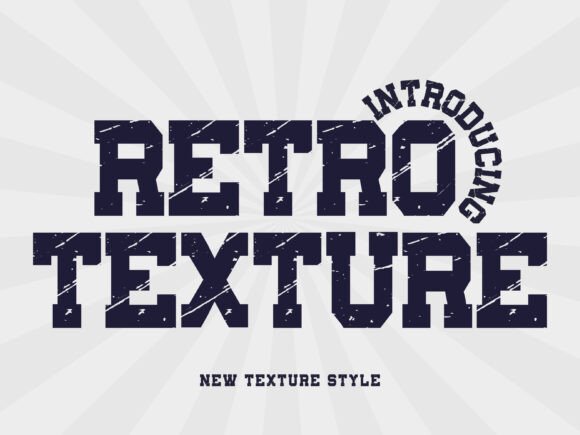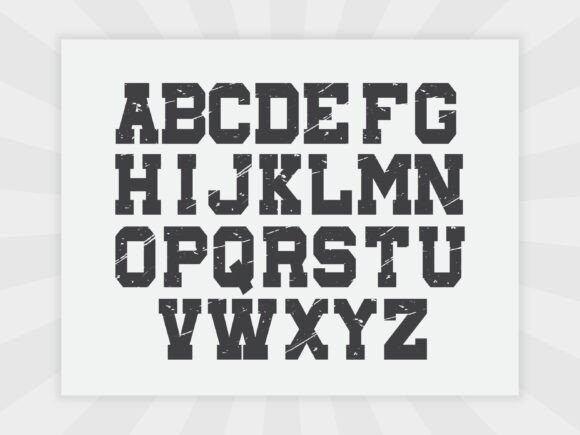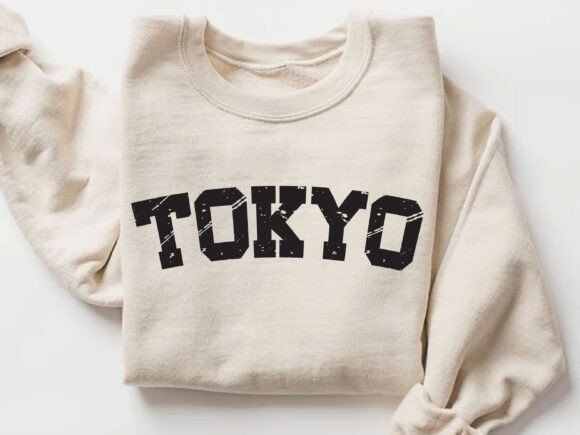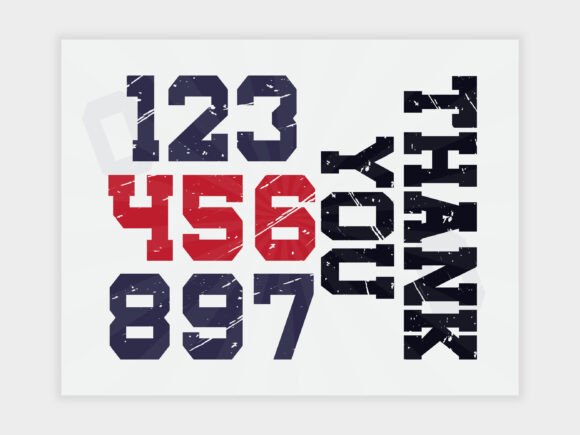
Retro Texture Font
About the Retro Texture Font
The Retro Texture Font is here to transform your projects with its distinctive character and style. Add a touch of classic varsity style to Perfect for sports-themed design projects. This Varsity font is sure to making jerseys, Party invitations, home decor items and more.
This font’s bold, retro styling excels in headlines, logos, and short, impactful text for projects needing a vintage athletic feel. It works particularly well for branding materials targeting a younger demographic interested in sports, streetwear, or classic Americana themes. Avoid using it for body text or lengthy paragraphs; its textured nature can hinder readability in extended passages.
Consider pairing “Retro Texture Font” with a clean sans-serif like Open Sans for body copy, creating a balanced contrast between the bold display and easily readable text. Alternatively, a crisp geometric sans-serif like Montserrat could further emphasize the modern edge of the retro style. For a more playful approach, a handwritten script font could add a touch of personality.
The font’s core personality is energetic and nostalgic, conveying a sense of vintage athleticism and playful rebellion. It is not suitable for projects requiring sophistication or minimalism.